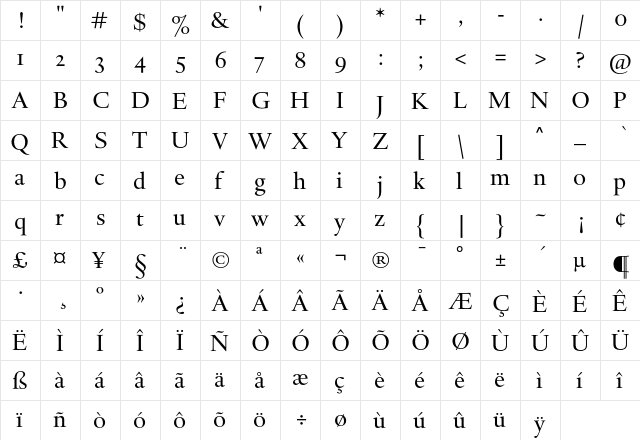
DTLHaarlemmerSD Regular Font Preview
DTLHaarlemmerSD Regular
Design Context for DTLHaarlemmerSD Typeface
DTLHaarlemmerSD takes a measured approach to typography — its balanced proportions and neutral character make it a reliable workhorse for both digital and print work.